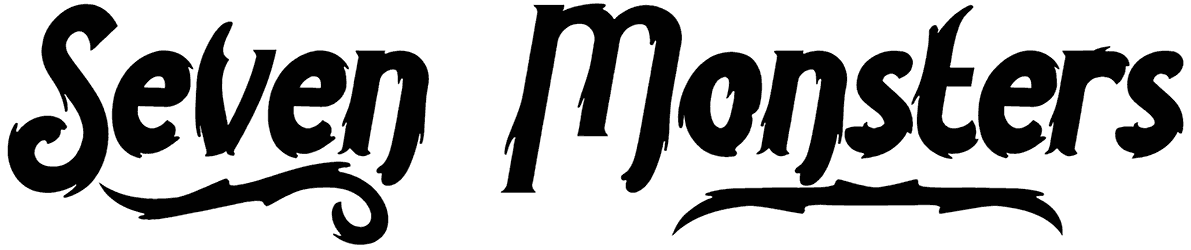
Seven Monsters Font
A win-win situation, just found on our up-to-date website, RB, which provides many dazzling fonts like Seven Monsters. This Halloween font can fit on any scary theme, such as movie titles, pumpkin drawings, posters, and along with others.